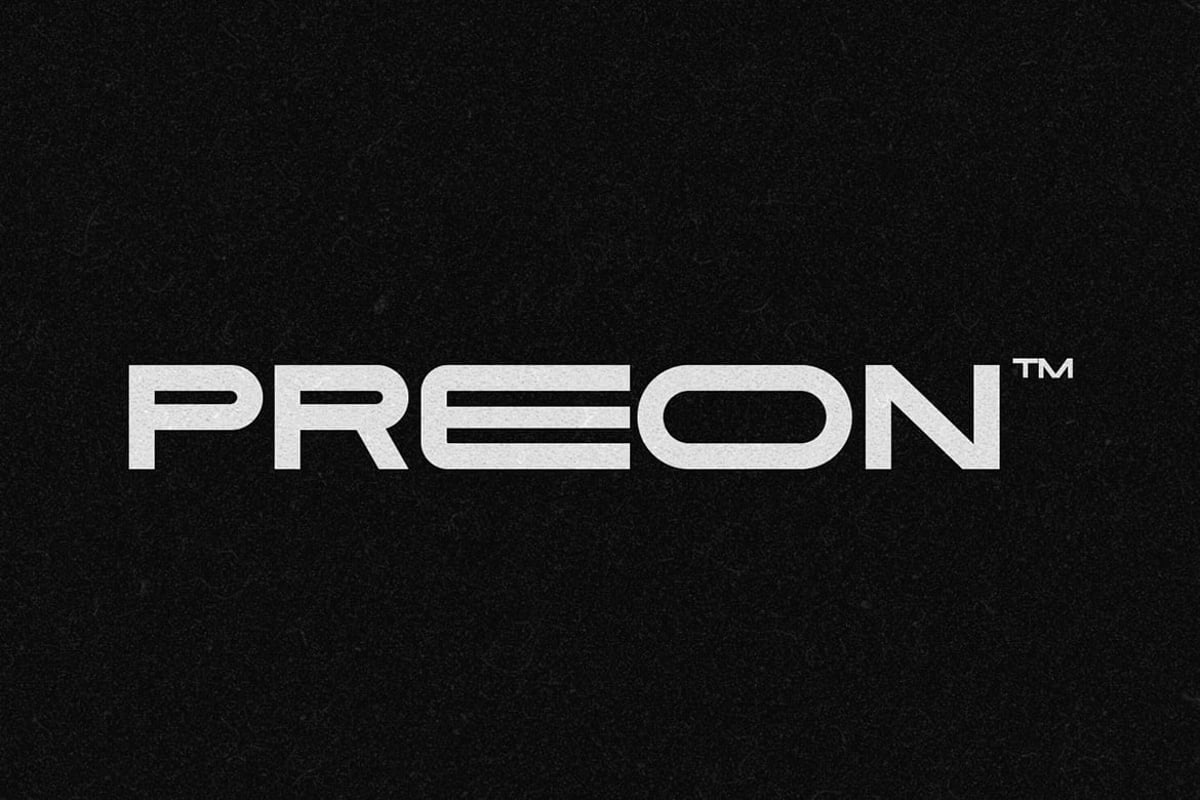
Preon - Display Font
Create striking futuristic designs with Preon's geometric precision and modern minimalism. Preon is a sleek sans-serif display font featuring clean lines and sharp details that deliver contemporary impact. Its geometric structure and minimalist approach make it an ideal choice for cutting-edge design projects that demand attention. Perfect for technology branding, sci-fi projects, gaming interfaces, logo design, and contemporary digital applications where modern sophistication is essential. Incl...